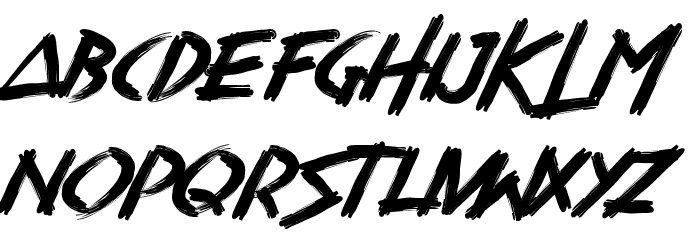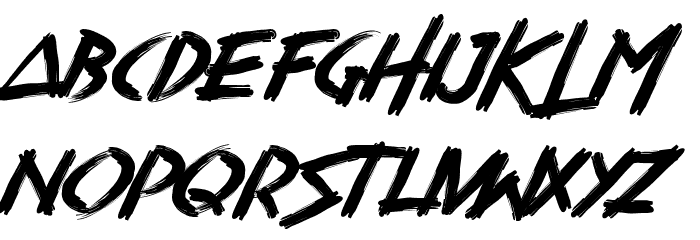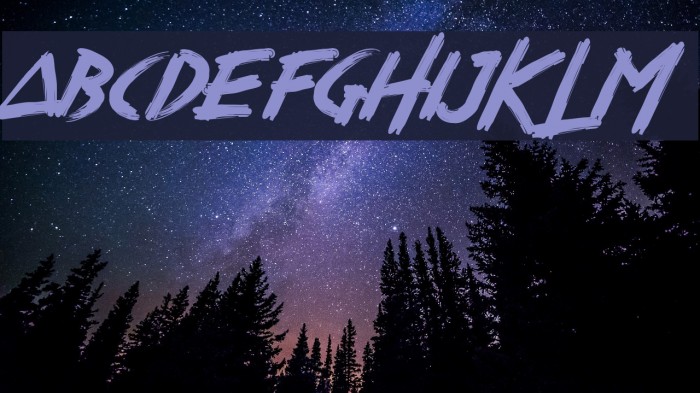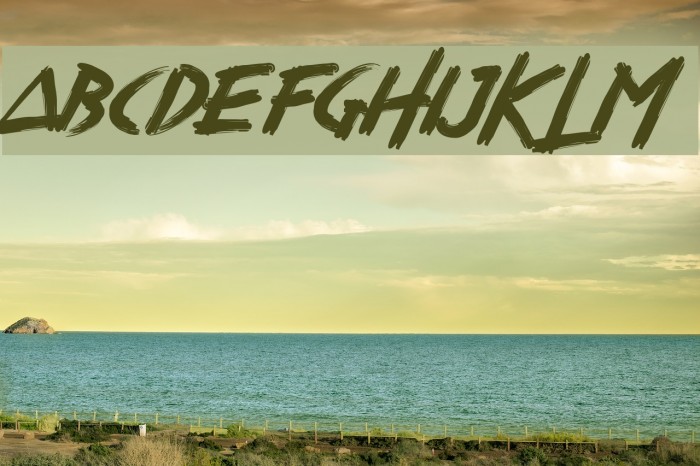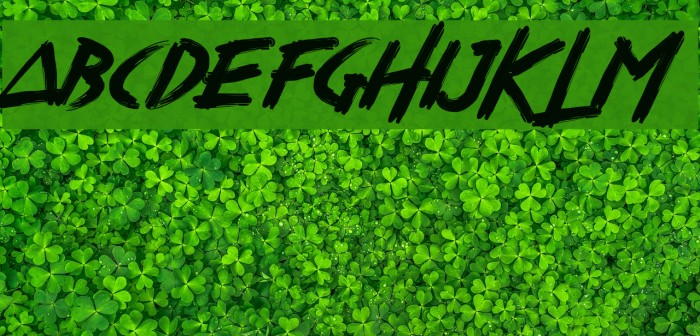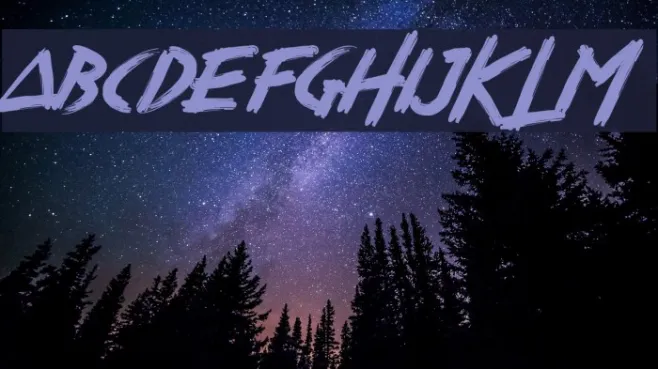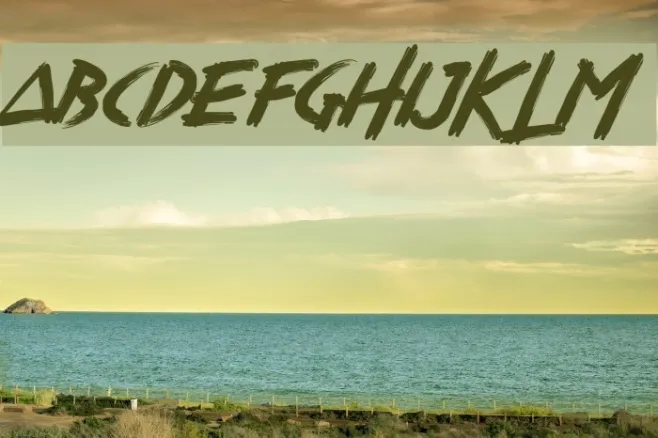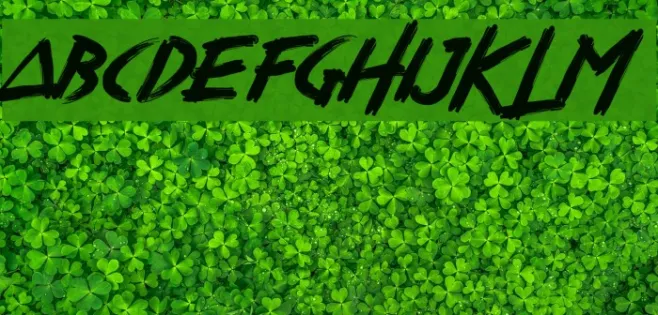
Raskhal Font
This font features a bold, dynamic brush style that exudes energy and movement. The strokes are thick and uneven, giving it a hand-painted appearance. Each character is crafted with a sense of urgency and spontaneity, making it ideal for designs that require a strong visual impact. The uppercase and lowercase letters maintain a consistent style, with sharp angles and a slightly slanted orientation. The numbers and special characters follow the same energetic design, ensuring a cohesive look across all text elements.
A bold, energetic brush-style font with dynamic strokes.
- Proposed Projects: Perfect for posters, album covers, branding projects, and any design needing a bold, artistic flair.